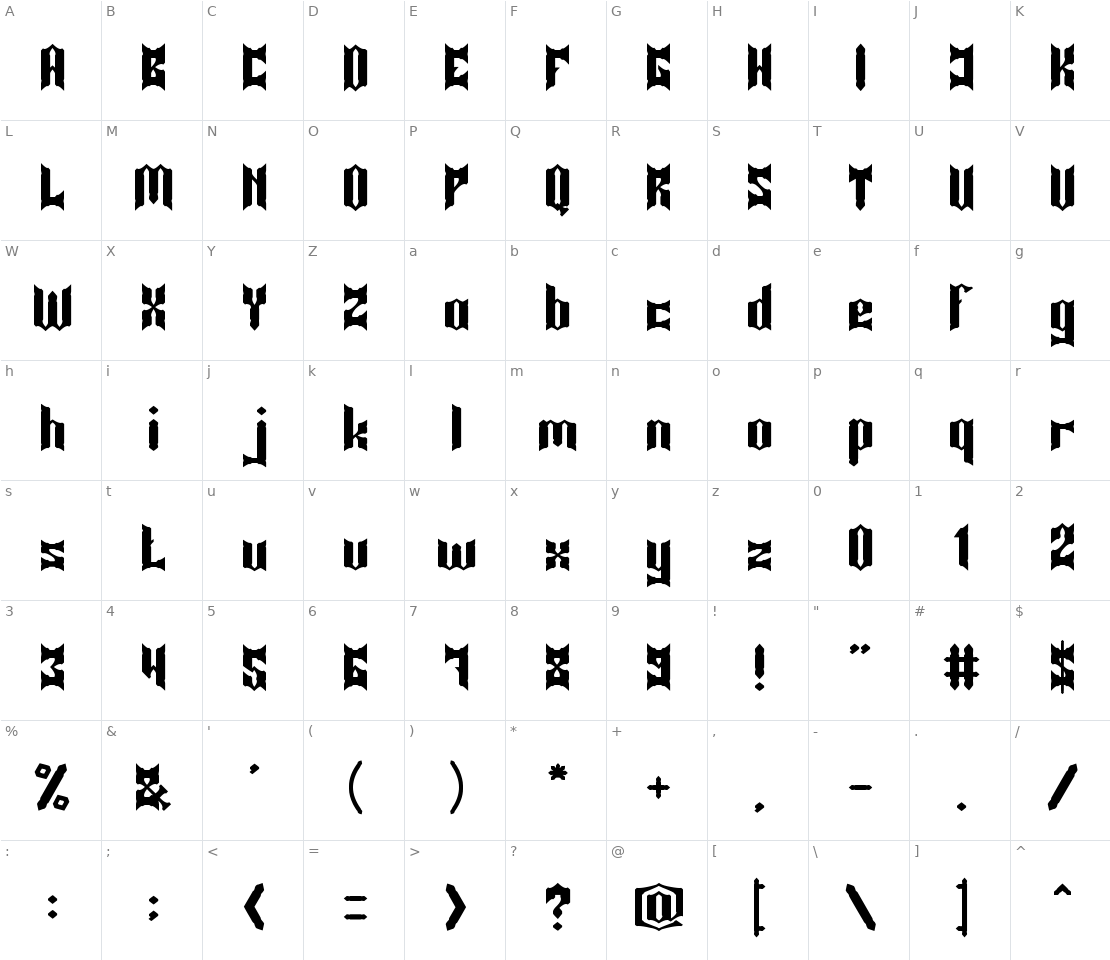
Knight of Light
Knight of Light is a bold, condensed gothic display face from weknow with angular letterforms that carry the weight and darkness of medieval blackletter tradition. The tight proportions and sharp strokes give it a fantasy-inflected intensity that works naturally for headlines, game titles, book covers, and anything rooted in dark medieval imagery. It reads best at large sizes where the dense, pointed details can hold their shape.